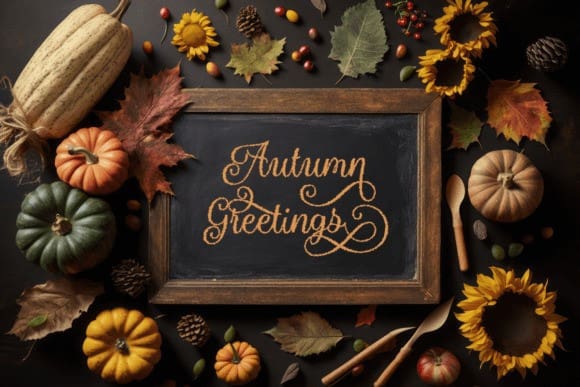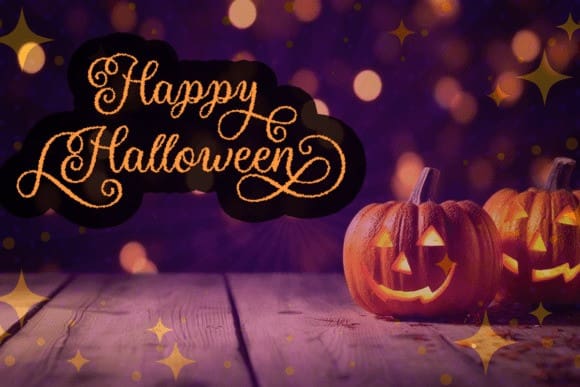
Halloween Sparkle Font
Halloween Sparkle Font, an elegant calligraphy typeface with a spooky twist! Perfect for all your Halloween-themed projects, this font features rough edges that add to its eerie charm. The font’s unique design is sure to catch the eye and leave a lasting impression on your audience.
Use Halloween Sparkle for invitations, posters, social media graphics, and more. Its versatility makes it a great choice for any project that requires a touch of spooky elegance. Don’t miss out on this must-have font for the Halloween season!